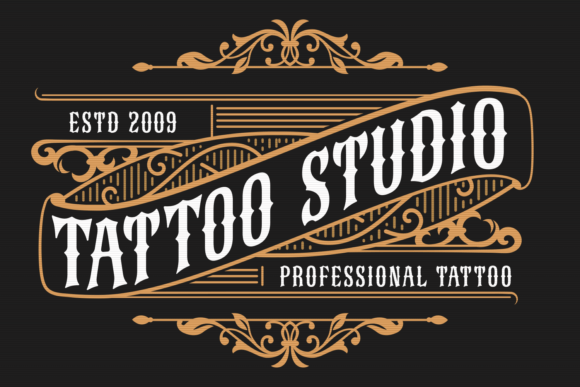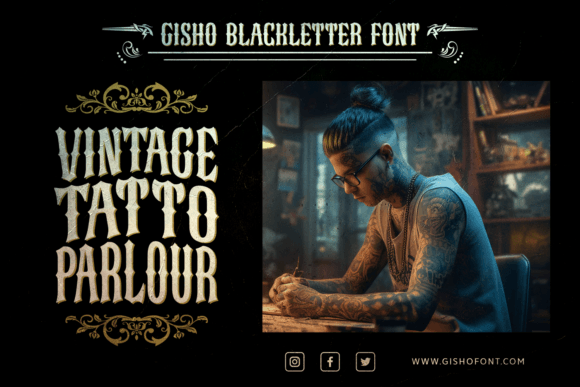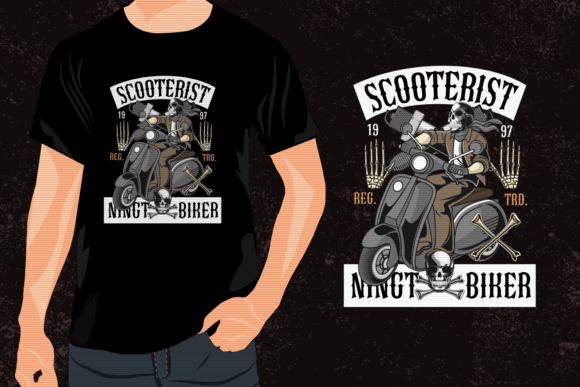
Gisho Font: Elevate Your Designs with Timeless Elegance
In the world of typography, few fonts manage to capture the essence of timeless elegance and old-world charm as effectively as Gisho. This blackletter vintage font has been making waves among designers and crafters, and for good reason. With its classic and bold strokes, Gisho brings a touch of sophistication and history to any project, making it the perfect choice for those looking to add a hint of nostalgia to their designs.
The Allure of Blackletter Typography
Blackletter fonts, also known as Gothic scripts, have a rich history dating back to the Middle Ages. Characterized by their dramatic flourishes and intricate details, these fonts were originally used for formal documents and literary works. Today, blackletter typography continues to captivate designers with its unique blend of elegance and drama. Gisho, in particular, stands out for its distinctive style that seamlessly blends classic elements with a modern twist.
What Makes Gisho Special?
Gisho is more than just a font; it’s a design statement. Its bold, sweeping strokes and elegant flourishes evoke a sense of nostalgia, transporting your designs to a bygone era. Whether you’re working on a wedding invitation, a vintage-style poster, or a product label, Gisho lends a unique and historic flair that’s sure to captivate your audience. Here are a few reasons why Gisho has become a favorite among designers:
- Versatility: Despite its vintage roots, Gisho is incredibly versatile. It can be used for a wide range of projects, from formal invitations to bold posters and even modern branding.
- Elegance: Gisho’s classic blackletter style adds a touch of elegance to any design. Its bold strokes and intricate details make it perfect for headlines, titles, and any text that needs to stand out.
- Easy to Use: Despite its complex appearance, Gisho is surprisingly easy to use. Its clear and consistent letterforms make it simple to read and work with, even for those new to blackletter typography.
Using Gisho in Your Designs
One of the best things about Gisho is its ease of use. Whether you’re a seasoned designer or a crafting enthusiast, you can easily incorporate Gisho into your projects. Here are a few ideas to get you started:
- Wedding Invitations: Add a touch of vintage romance to your wedding invitations with Gisho. Its elegant strokes and classic style make it perfect for formal wedding announcements.
- Posters and Flyers: Create eye-catching posters and flyers with Gisho. Its bold and dramatic style is sure to grab attention and leave a lasting impression.
- Product Labels: Give your products a unique and historic flair with Gisho. Its distinctive blackletter style makes it perfect for labeling products, especially those with a vintage or artisanal feel.
Tips for Working with Gisho
While Gisho is easy to use, there are a few tips to keep in mind to get the most out of this beautiful font:
- Pair with Simple Fonts: Gisho’s bold style can be overwhelming if paired with other bold fonts. For best results, pair it with simpler fonts to create a balanced look.
- Experiment with Colors: While Gisho looks great in traditional black and white, don’t be afraid to experiment with different colors. Metallic colors, in particular, can add a touch of luxury to your designs.
- Play with Sizes: Gisho’s versatility extends to its sizing. Experiment with different font sizes to create visual interest and hierarchy in your designs.
Gisho is more than just a font; it’s a design tool that can elevate your projects to new heights. With its timeless elegance, classic style, and versatility, Gisho is perfect for designers and crafters looking to add a touch of old-world charm to their designs. Whether you’re working on a formal invitation, a bold poster, or a product label, Gisho is sure to make a lasting impression. So why wait? Embrace the allure of the past with Gisho’s distinctive blackletter style and take your designs to the next level.